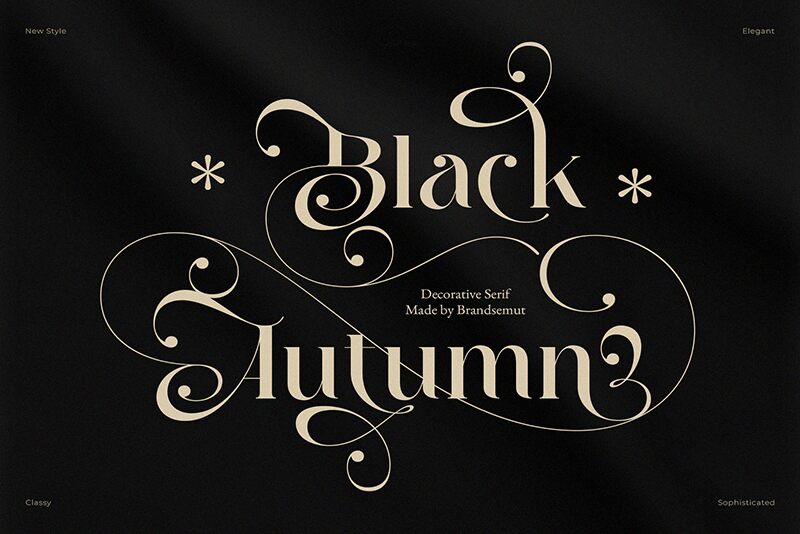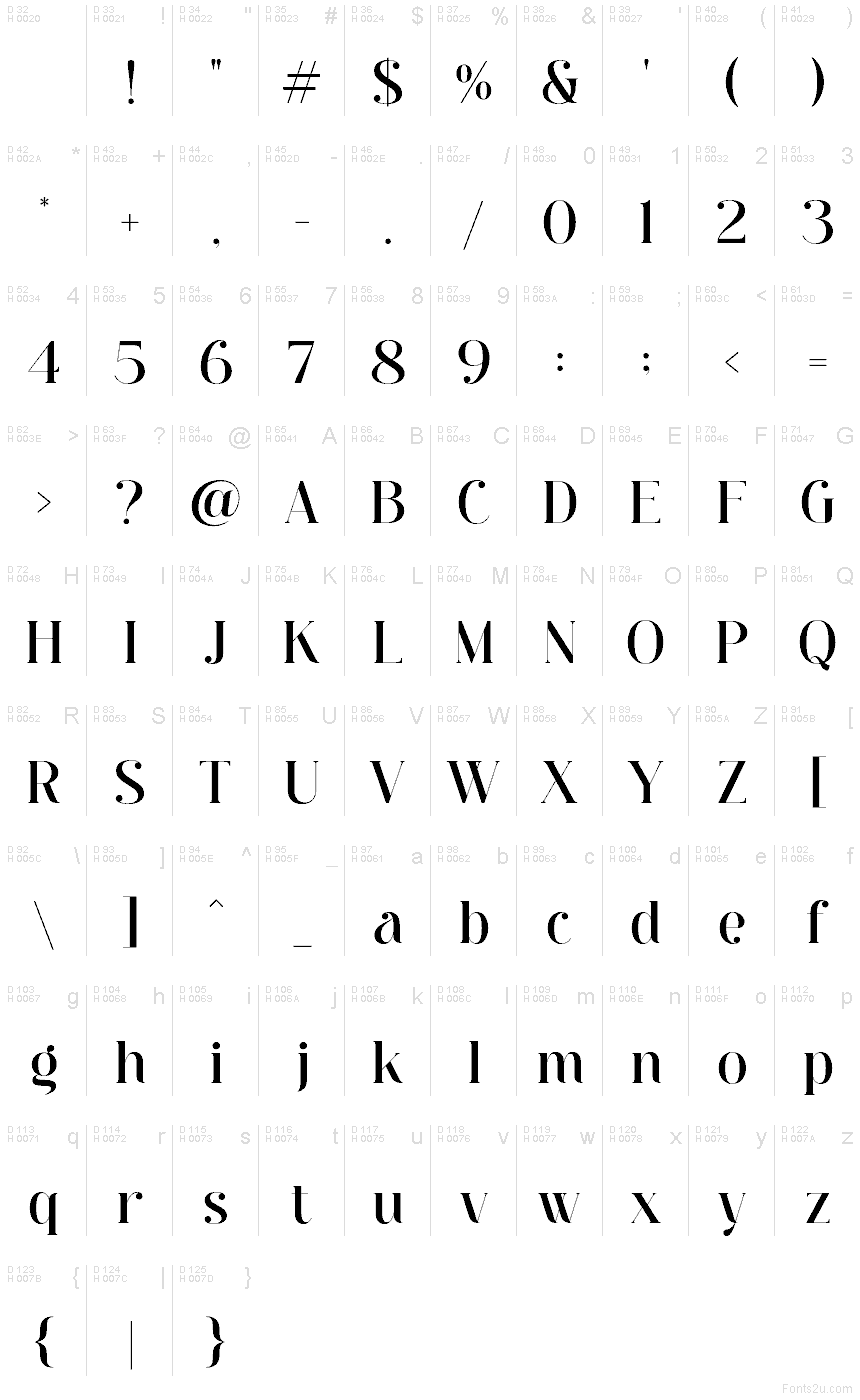
Black Autumn Regular
Black Autumn font by BrandSemut is a free modern serif typeface with a sleek, editorial edge. Tall, slender letters with razor-sharp serifs and inky verticals give it that glossy magazine feel, like headlines printed on thick, matte paper. The spacing is tight yet controlled, so every word feels intentional and dramatic without tipping into clutter.
Using Black Autumn, this free font shines on fashion branding, luxury packaging, book covers, posters, album art, and statement social graphics. Its refined curves and crisp edges carry a moody, upscale tone that works beautifully at larger sizes. For body text or captions, pair Black Autumn with a clean geometric sans to keep layouts elegant and easy to read.